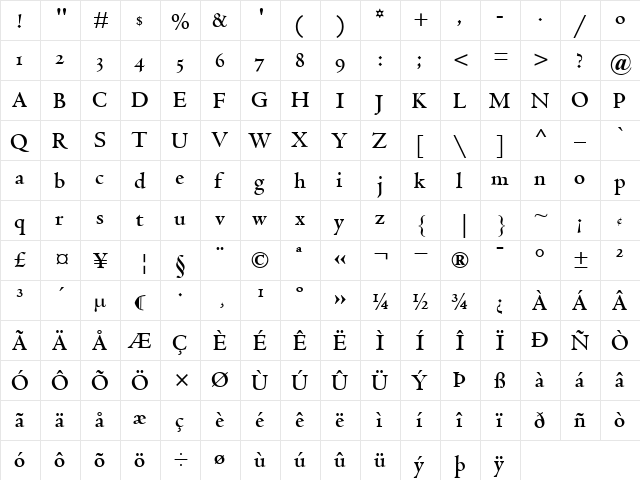
CentaurMTOldstyleFigures Bold
Design Context for CentaurMTOldstyleFigures Typeface
CentaurMTOldstyleFigures carries the refined structure of traditional serif typography, with bracketed terminals and considered proportions that communicate credibility and craft. The heavy weight commands attention and anchors typographic hierarchies.
Pro Tip: Use CentaurMTOldstyleFigures for editorial body copy and considered headline work. Pair with a neutral sans for UI elements or captions to create a classic hierarchy.